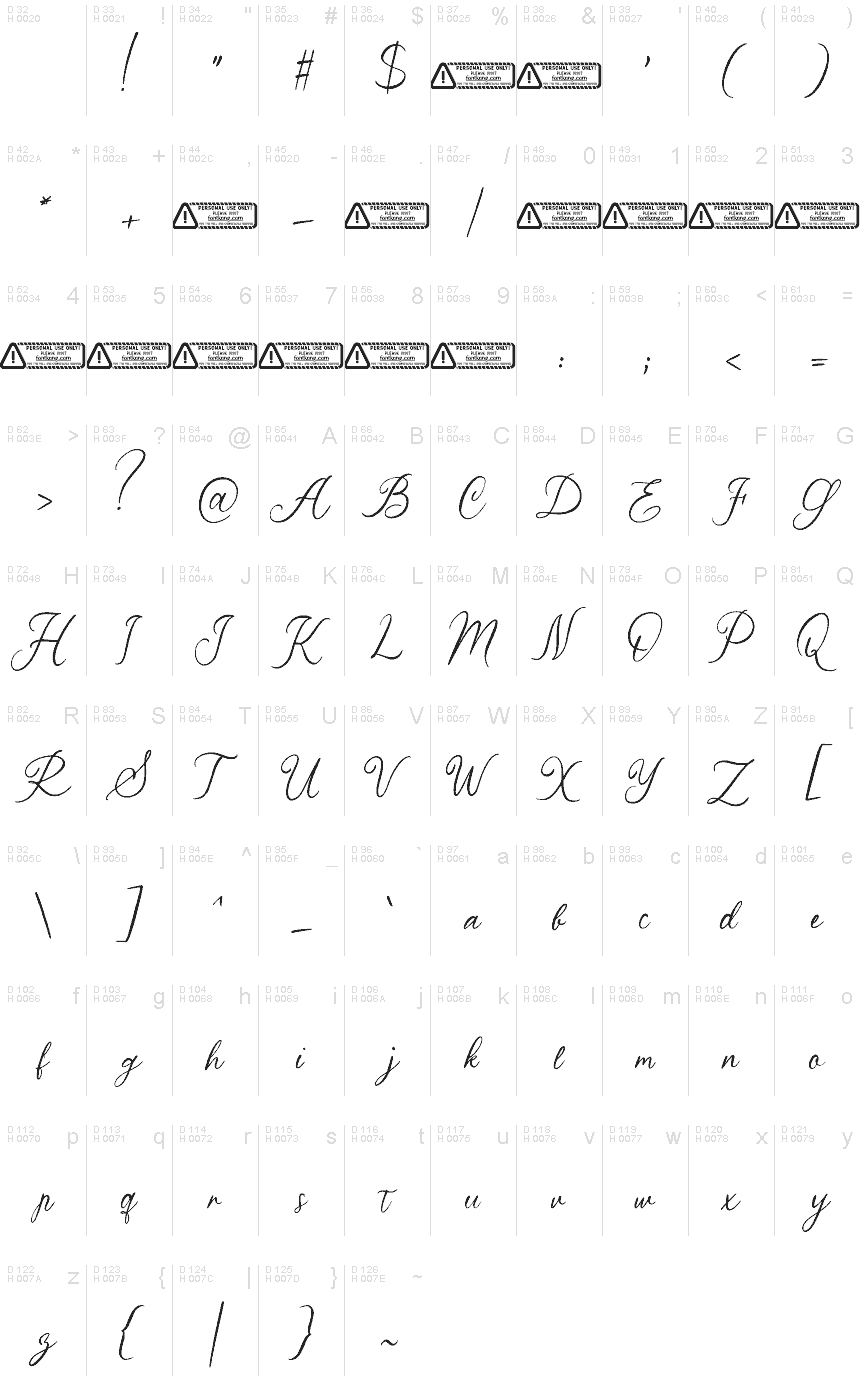
Wildya font is a modern expressive handwritten font created with elegance and sophistication by diary of Kong Font. The letters go from thick to thin to provide a fluid flowing design with each character standing out on its own. Proper balance and scale between the strokes turn this free handwritten font into a glamorous one that comes forward when used.
If you have branding projects, Wildya has multiple potential in contributing to an elegant identity creation. Use it for watermarks, business cards, or luxury cosmetics packaging. Suitable titles should include magazines targeting both female and male readers and other promotional print designs like posters or flyers. Digital platforms can also benefit with website banners, mobile app interface, short video advertising, social media posts about fashion or jewelry among many others!